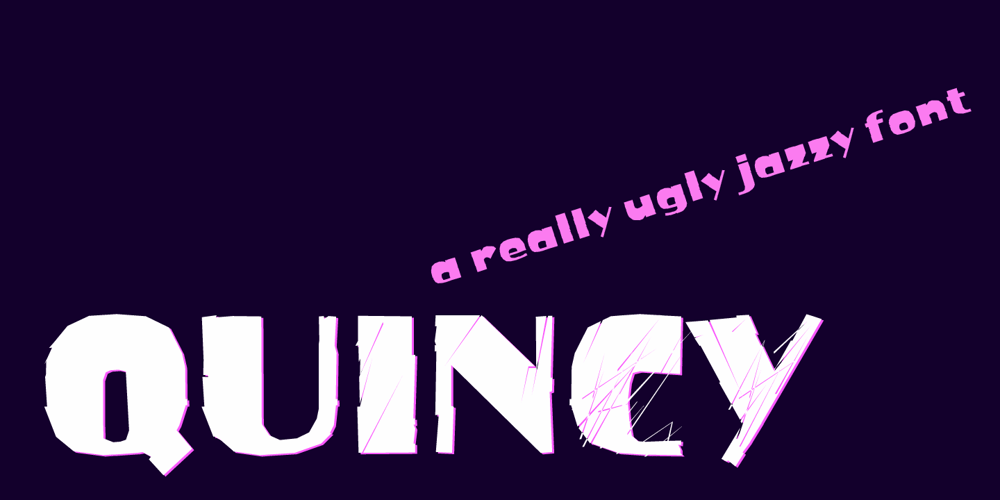
Quincy Font Family was designed by Gert Wiescher and published by Wiescher Design. Quincy contains 3 styles and family package options. »QUINCY« started as an art project. I was stitching roughly cutout letters together on a piece of wooden board, but I didn’t like the result! So I ended up with a font in three cutout styles. I thought it was so unusual and really beautifully ugly, that I finished it, adding flashes here and there. Now I am offering this absolutely unusual font as a packet of three for you to enjoy. Have at least as much fun working with it as I had designing the packet. The font is great for packaging or posters, or whatever comes to your imaginations.